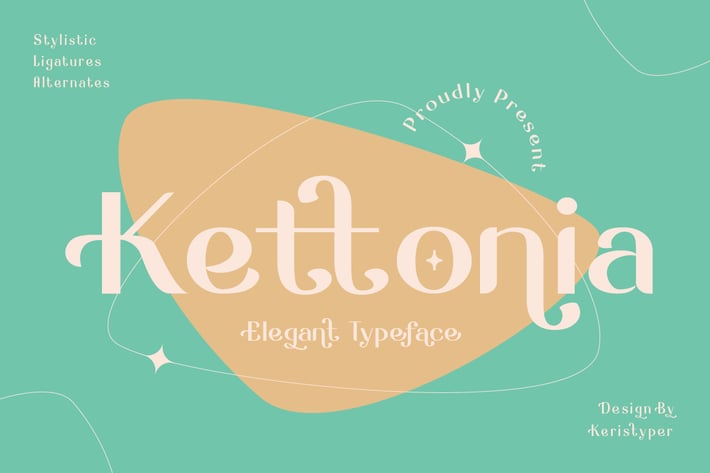
Kettonia Font
Kettonia is a modern aesthetic serif font that is both memorable and stylish. This font is good for logo design, Social media, Movie Titles, Books Titles, short text even long text letters, and good for your secondary text font with sans or serif.
Standard Uppercase & Lowercase
Multilingual : ä ö ü Ä Ö Ü ß ¿ ¡
Alternate & Ligature